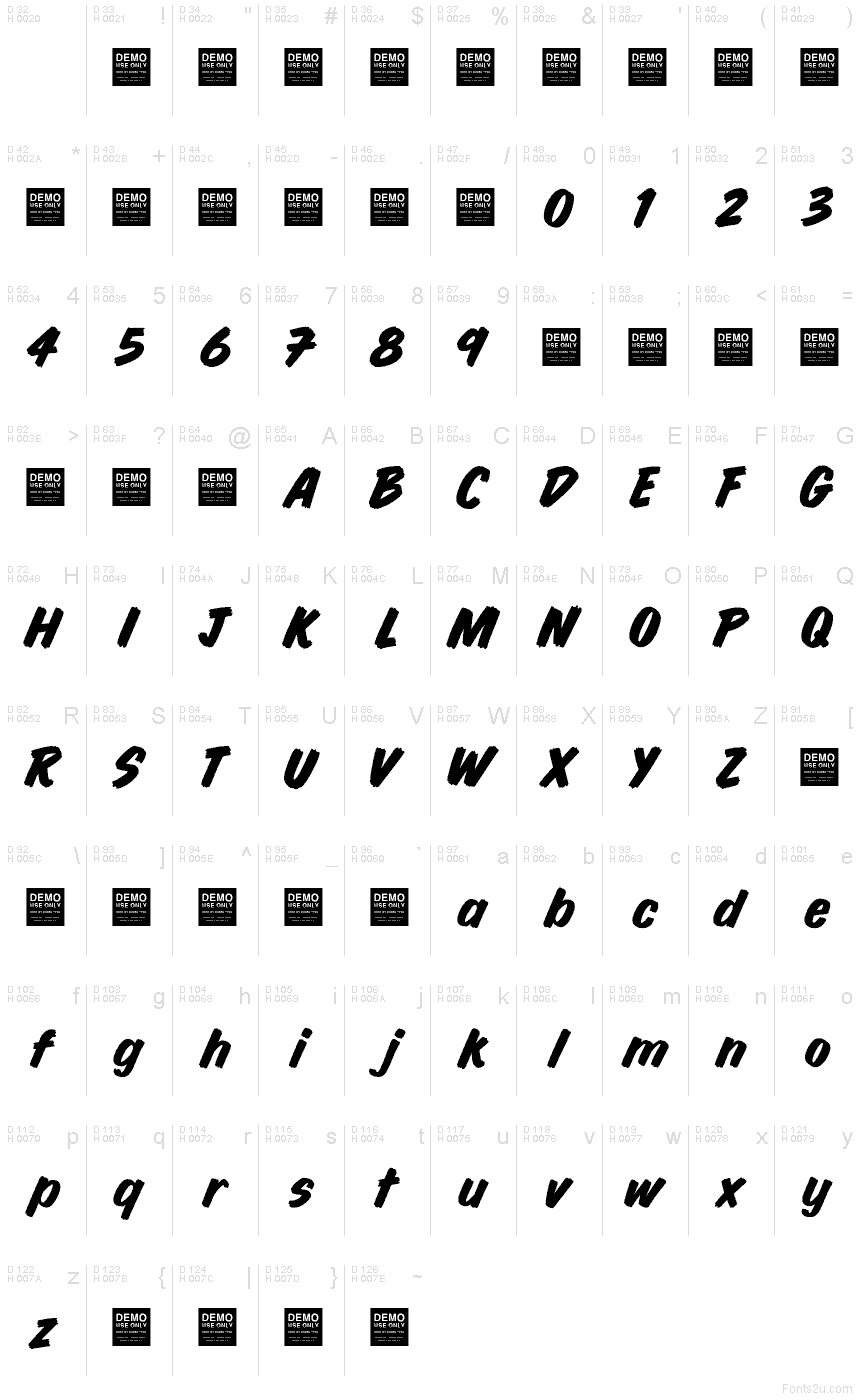
Compass Point
Compass Point font by BLKBK Fonts is a free brush font that mirrors casual elegance and informal charm. Its bold, expressive brush strokes and script style create a natural rounded flow that captures attention with creativity and uniqueness.